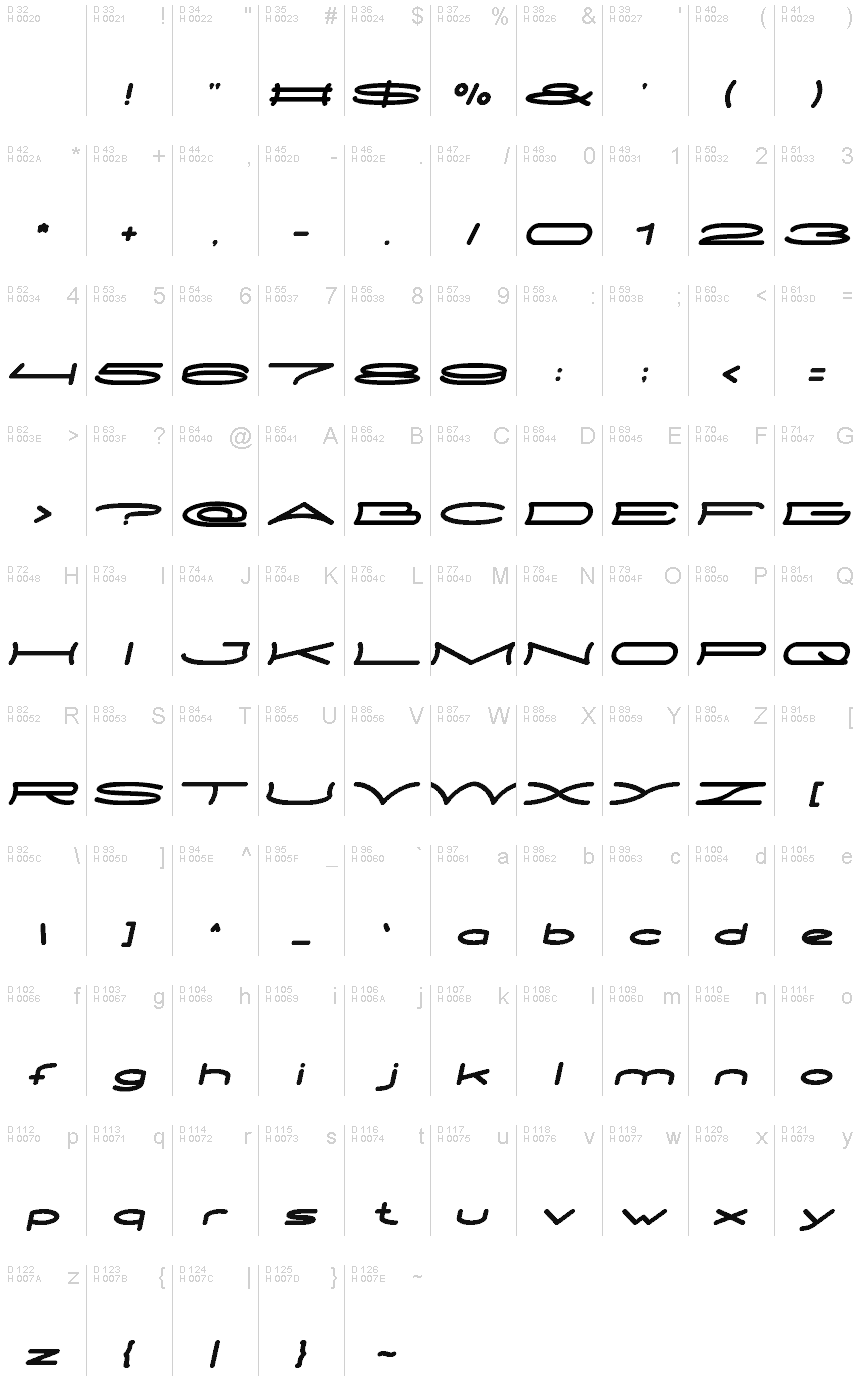
Metro City Italic is a striking display font that commands attention with its bold, angular lines and expanded letterforms. Designed by the creative team at Weknow, this font exudes a sense of modern industrial chic, making it an ideal choice for branding, packaging, and editorial design projects. The expanded width of the characters lends an air of authority and confidence, while the italic slant adds a dynamic, forward-moving energy. Metro City Italic is a versatile font that can seamlessly transition from eye-catching headlines to impactful body text, making it a valuable asset in any designer's toolkit.
Designers seeking to create a strong, memorable visual identity will find that Metro City Italic's unique aesthetic can help their projects stand out. Its bold, geometric aesthetic lends itself well to applications in the fashion, technology, and architecture industries, where a sense of modernity and innovation is paramount. Additionally, the font's legibility and versatility make it suitable for use in a wide range of contexts, from signage and posters to digital interfaces and editorial layouts.
Zeichentabelle der Schriftart METRO CITY Italic
METRO CITY